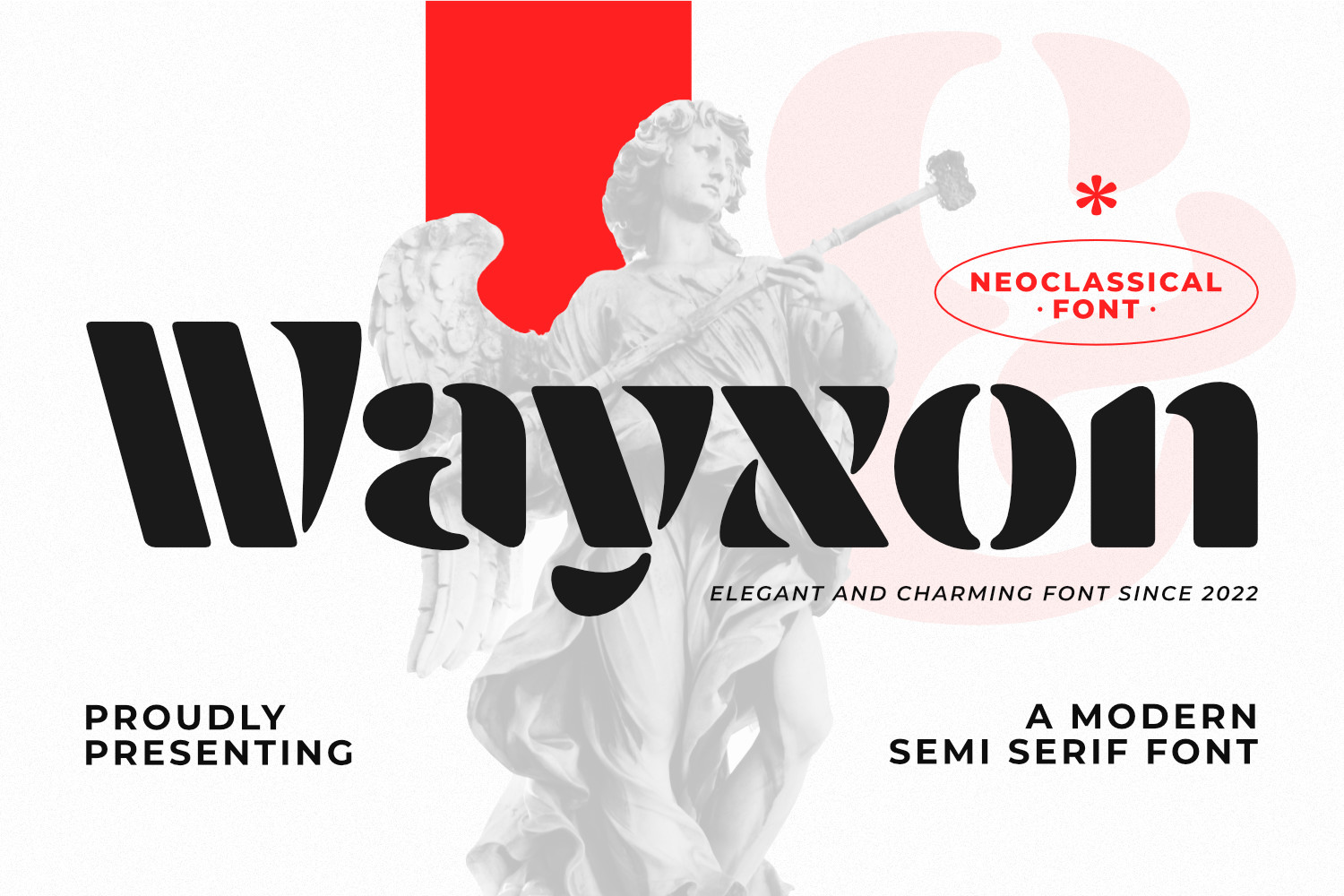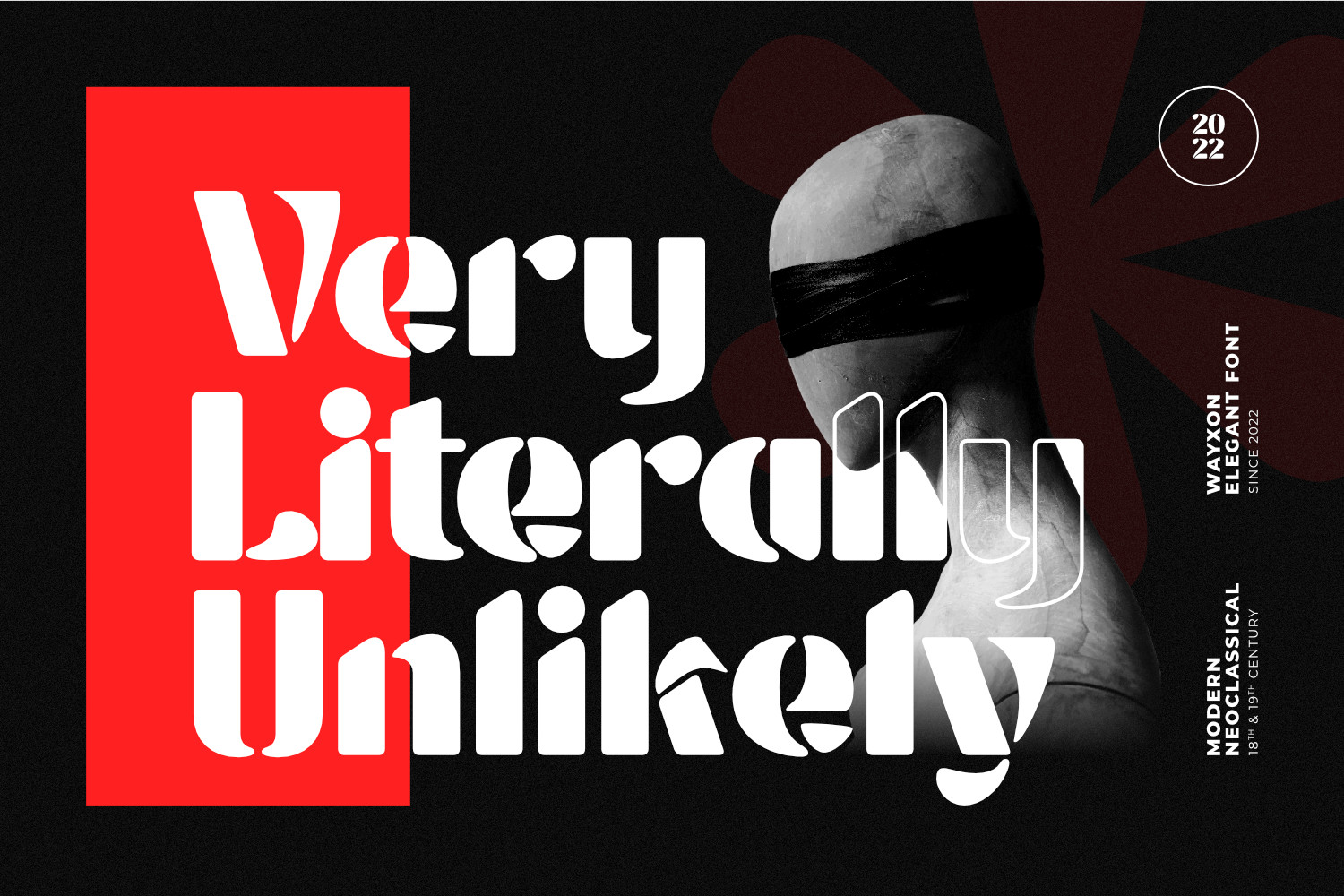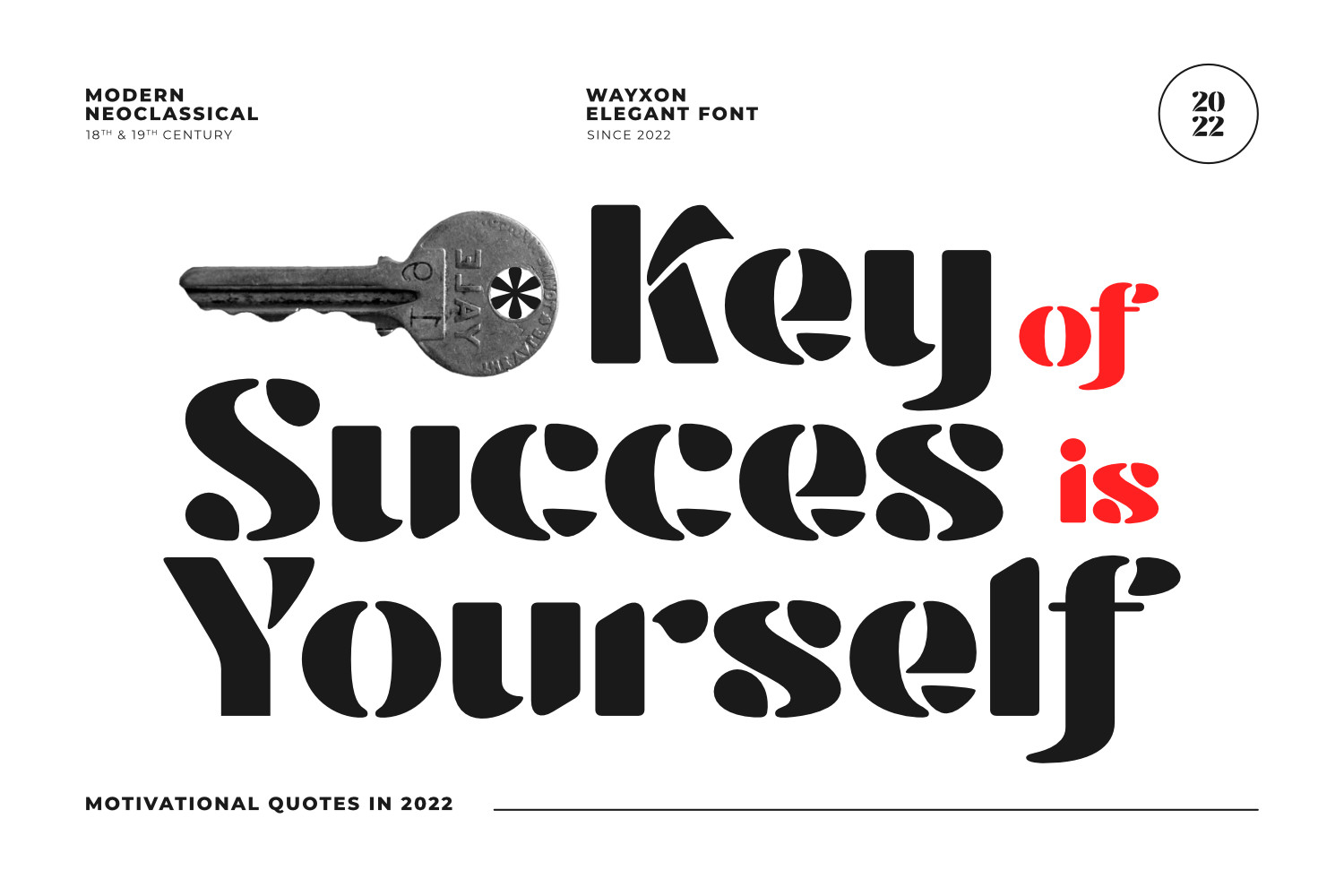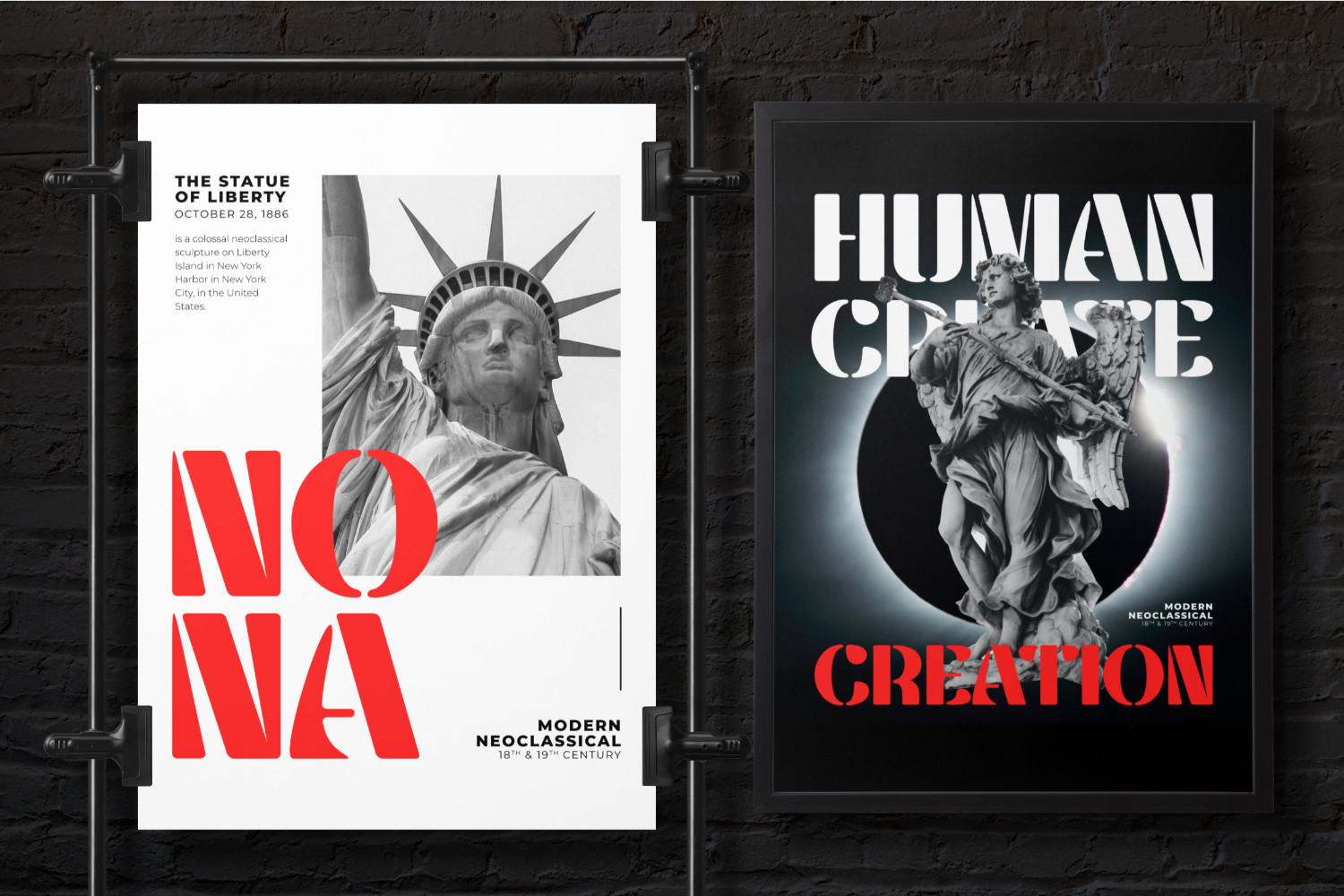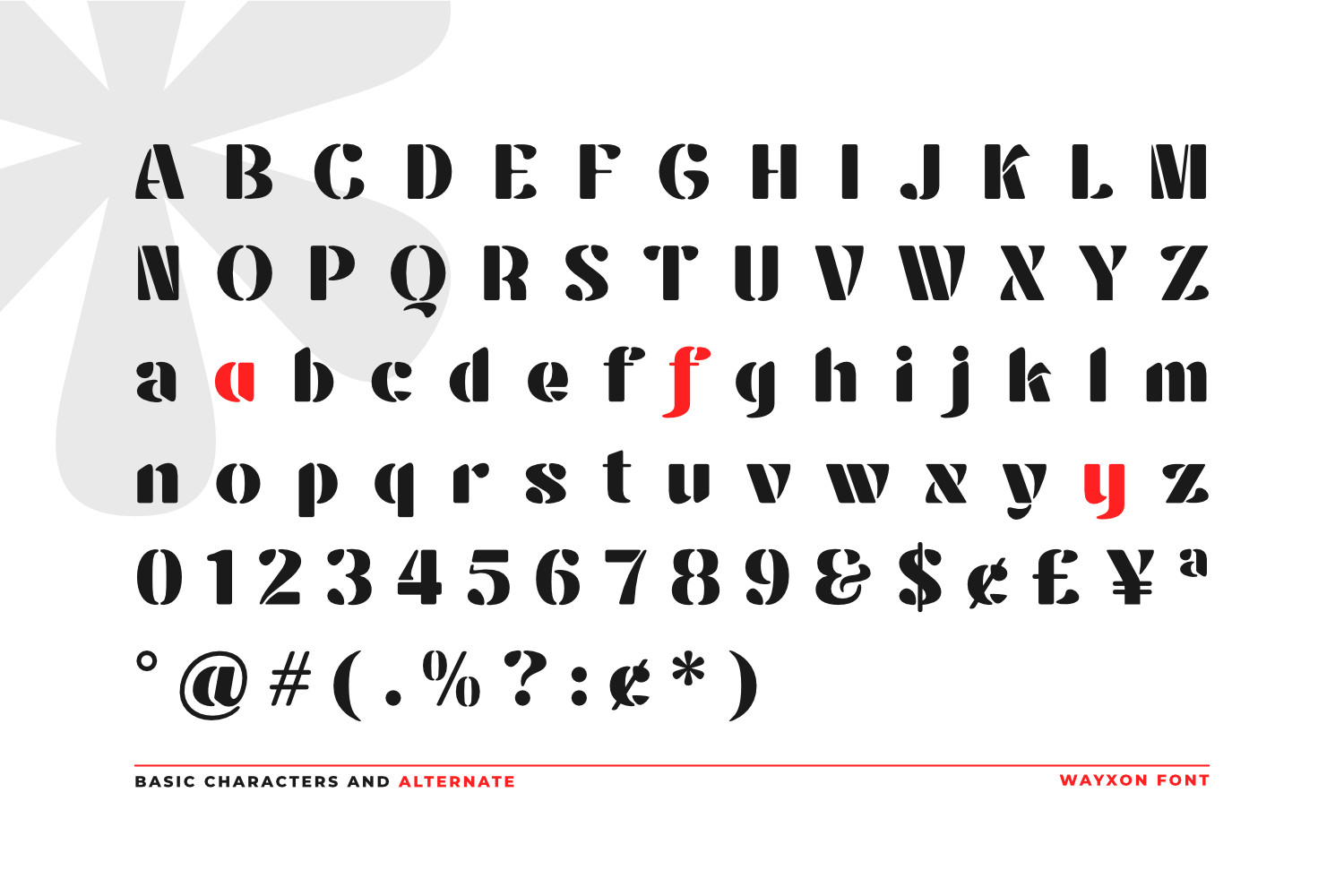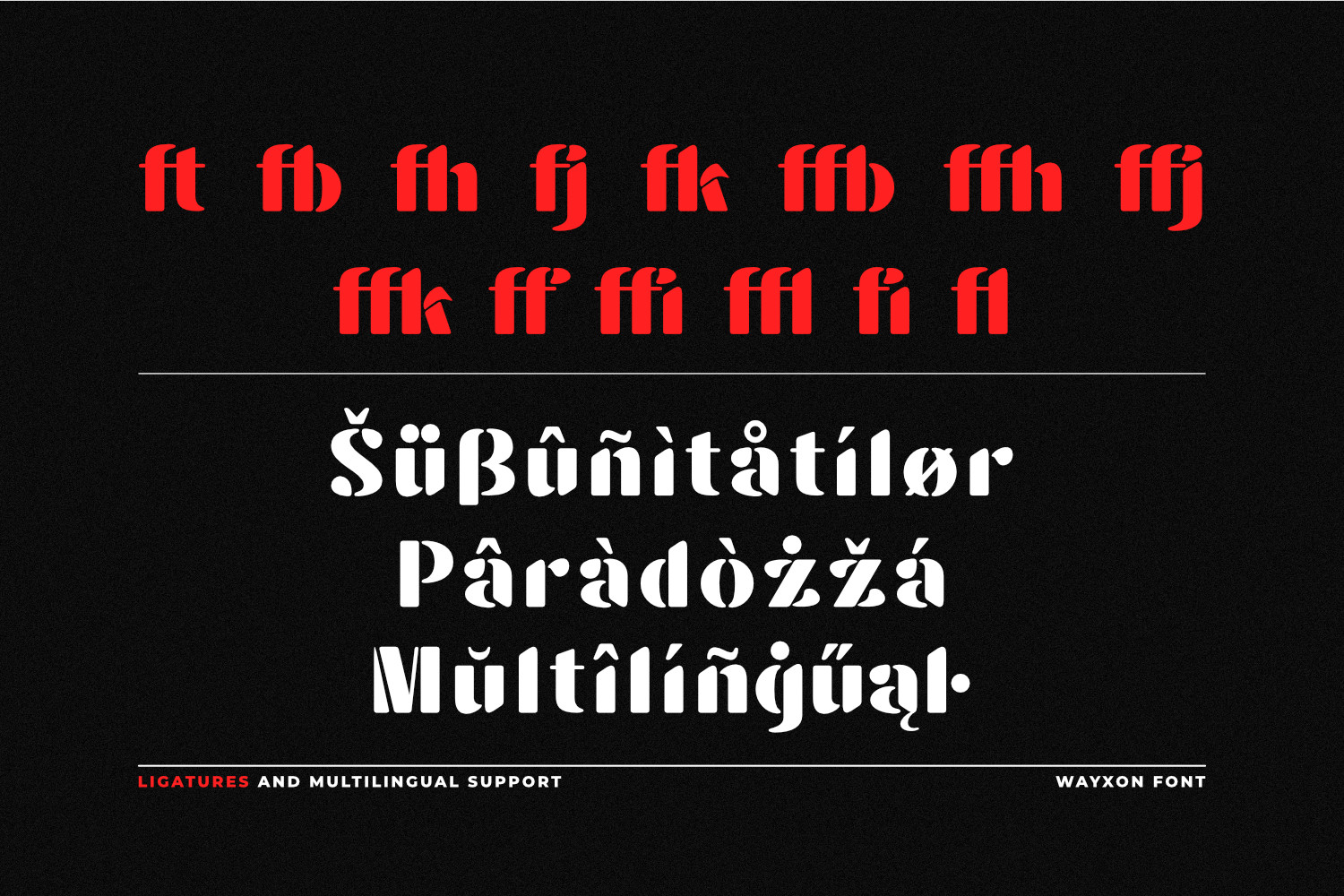
Wayxon is a modern semi-serif font that merges the bold elegance of neoclassical style with contemporary letterform experimentation. Its heavy-weight body and unique cutout detailing give a sharp contrast and rhythmic character flow, making it stand out in editorial, branding, and visual identity use. The letterforms are crafted with stylish alternates and ligatures, offering versatility for both vintage-inspired and modern projects.
Perfectly balanced between refined charm and assertive impact, Wayxon is a striking choice for display typography. Especially in posters, book covers, album art, and luxury packaging. The multilingual support and alternate characters empower designers to create expressive and diverse typographic compositions with strong visual presence.